The best new typefaces for August 2026
What's been cooking up in typography over the summer? Quite a lot, actually. We share some of the latest typefaces to inspire your next design project.
Se Micro by Gallery Type
Instead, it's been a bit of a bumper month. New specimens have come in. One from F37, with a new typeface that surely has a bigger story behind the name... we know Rick Banks pretty well. We want the gossip. And there are updates from Chill Type, Mark Julien Hahn (Founder of Softdrive in Berlin), and designer Simon Stratford.
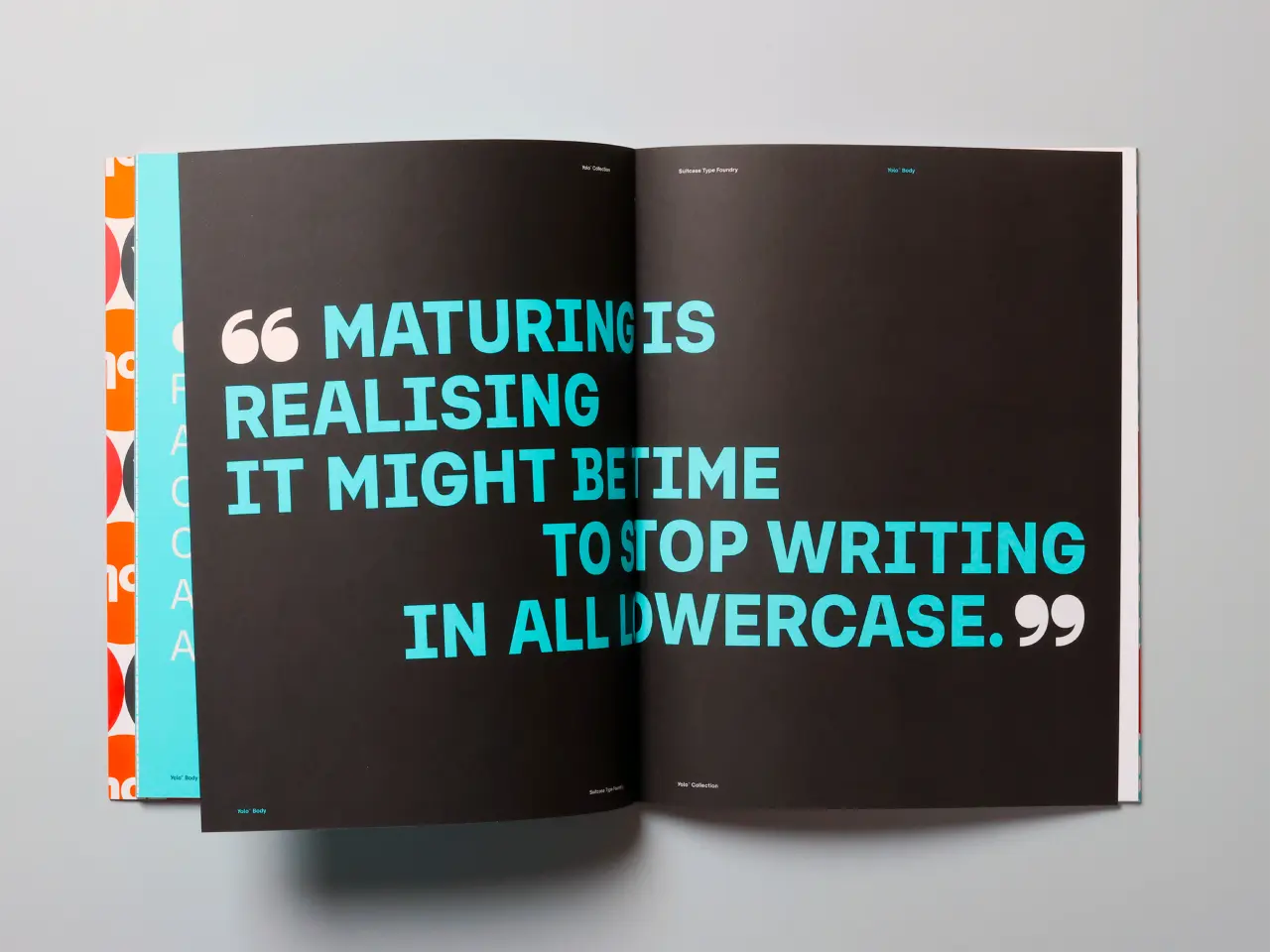
Yolo by Suitcase Type Foundry
1. Lingo by Softdrive
Mark Julien Hahn, founder and type designer at Softdrive Foundry, has just released Lingo – a transitional serif in 12 styles. That includes six weights plus true italics, built as a workhorse for long-form body copy. Our kind of territory.
It's inspired by 18th-century typefaces from the likes of William Caslon, John Baskerville and Louis Simonneau's Romain du Roi. It takes all their old-world charm, low stroke contrast and letterpress warmth as the foundation for this contemporary text face. But there's a twist. On closer inspection, you'll notice little drops on the 'g', 'f' and 'a' that give this serif personality and drama. Alternates are available when pure legibility is the priority.
It includes a full set of international glyphs through ten stylistic sets that swap classic letterforms for phonetic ones, built for expressive display type and logo work. The full family is now available, with a full trial version if you want to experiment first.
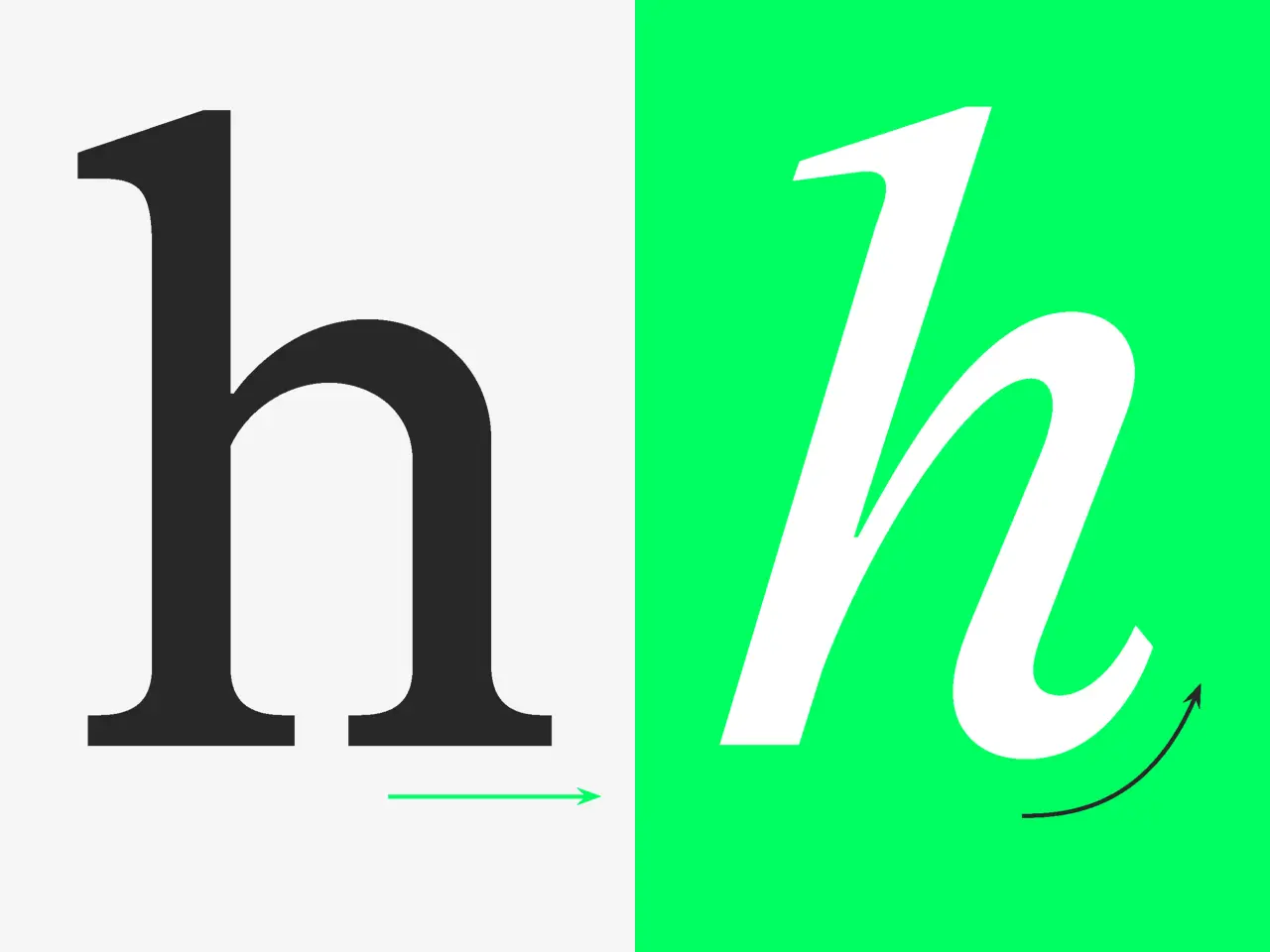
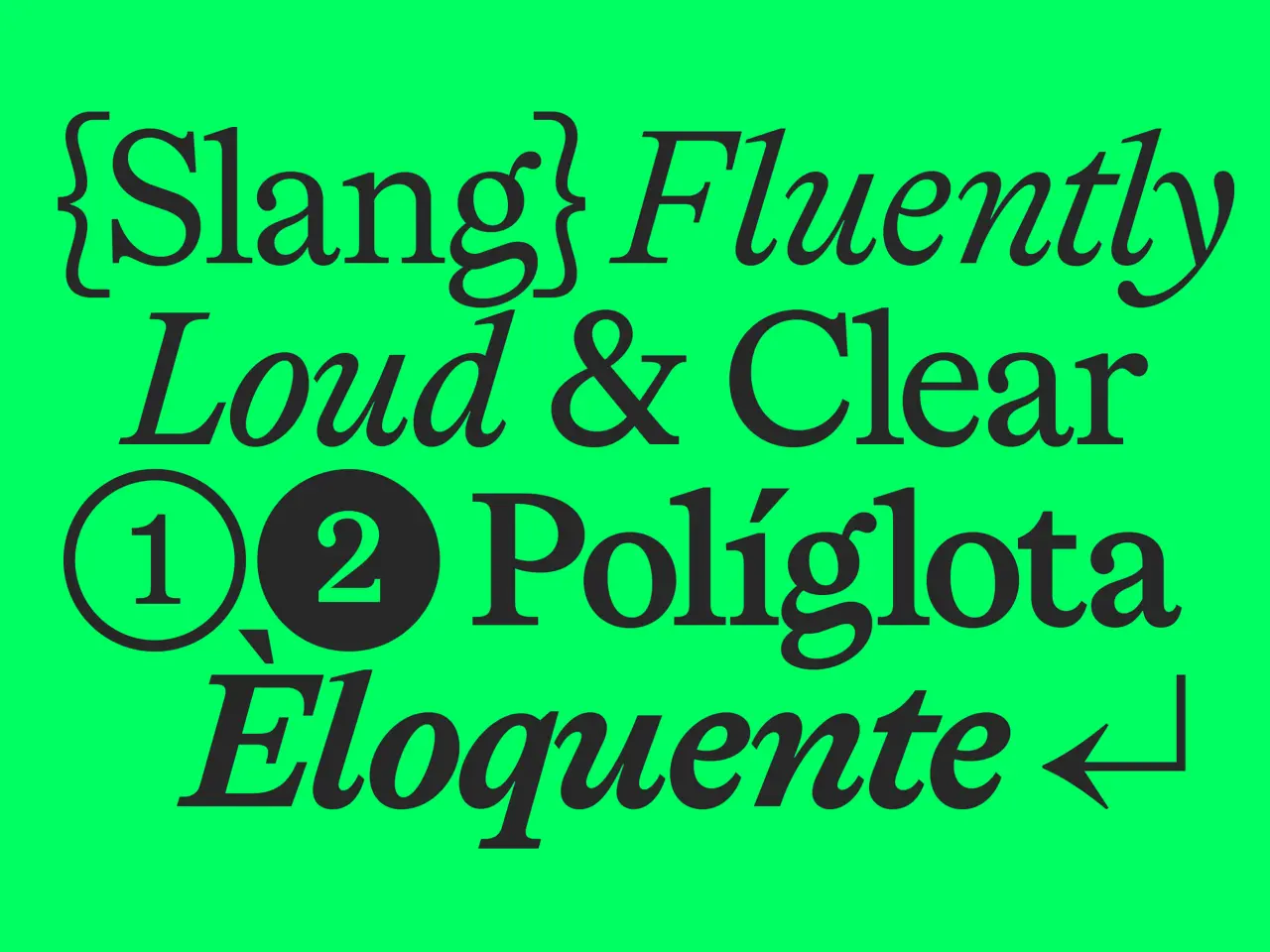
2. Sektor by Chill Type
One of the best things about running this regular series is discovering new foundries. And Chill Type is one of them. Its founder, Vedad Siljak, reached out this month to tell us about its latest release: Sektor.
It's a monumental slab serif with tight counters and even tighter spacing. Gorgeous. It mixes hard cuts with squarish curves, with technical precision and smooth stability I know you'll appreciate. The large slab keeps it grounded, while the thin punctuation adds nice contrast to the heavier letterforms. Naturally, it's a great shout for huge headlines and bold statements.
The type nerds among you will be delighted to hear of its inspiration: the logotype of an East German watercolour manufacturer. A typeface with a backstory. Perfect.
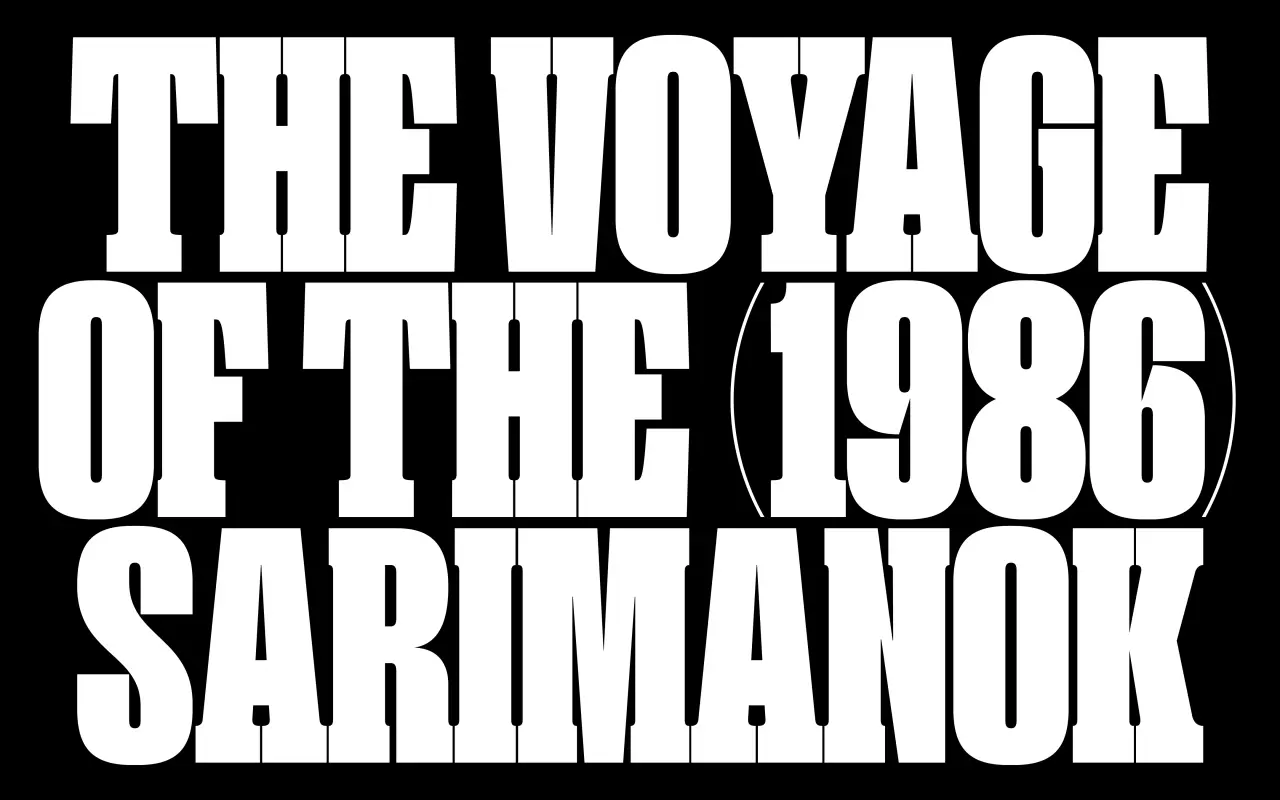
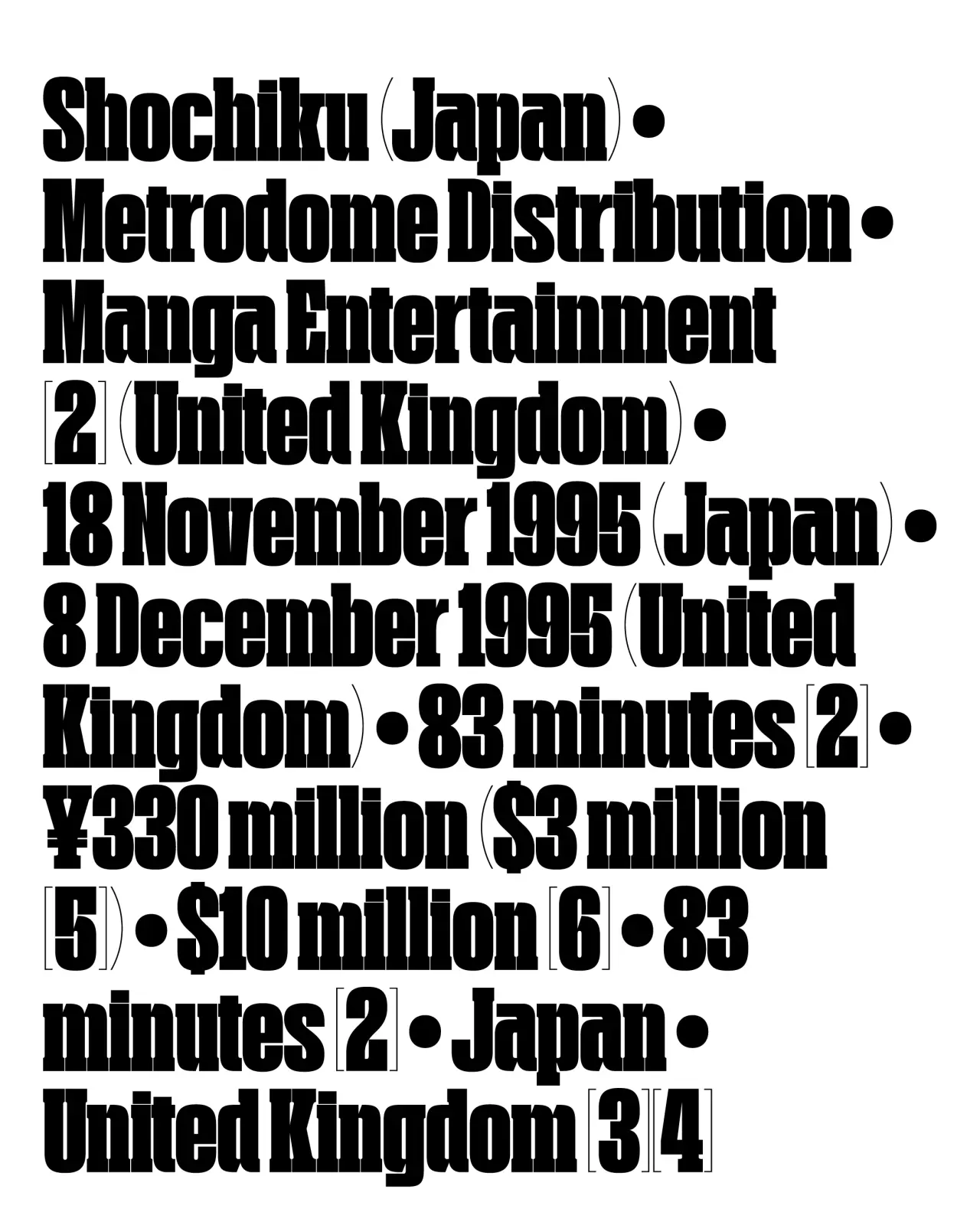
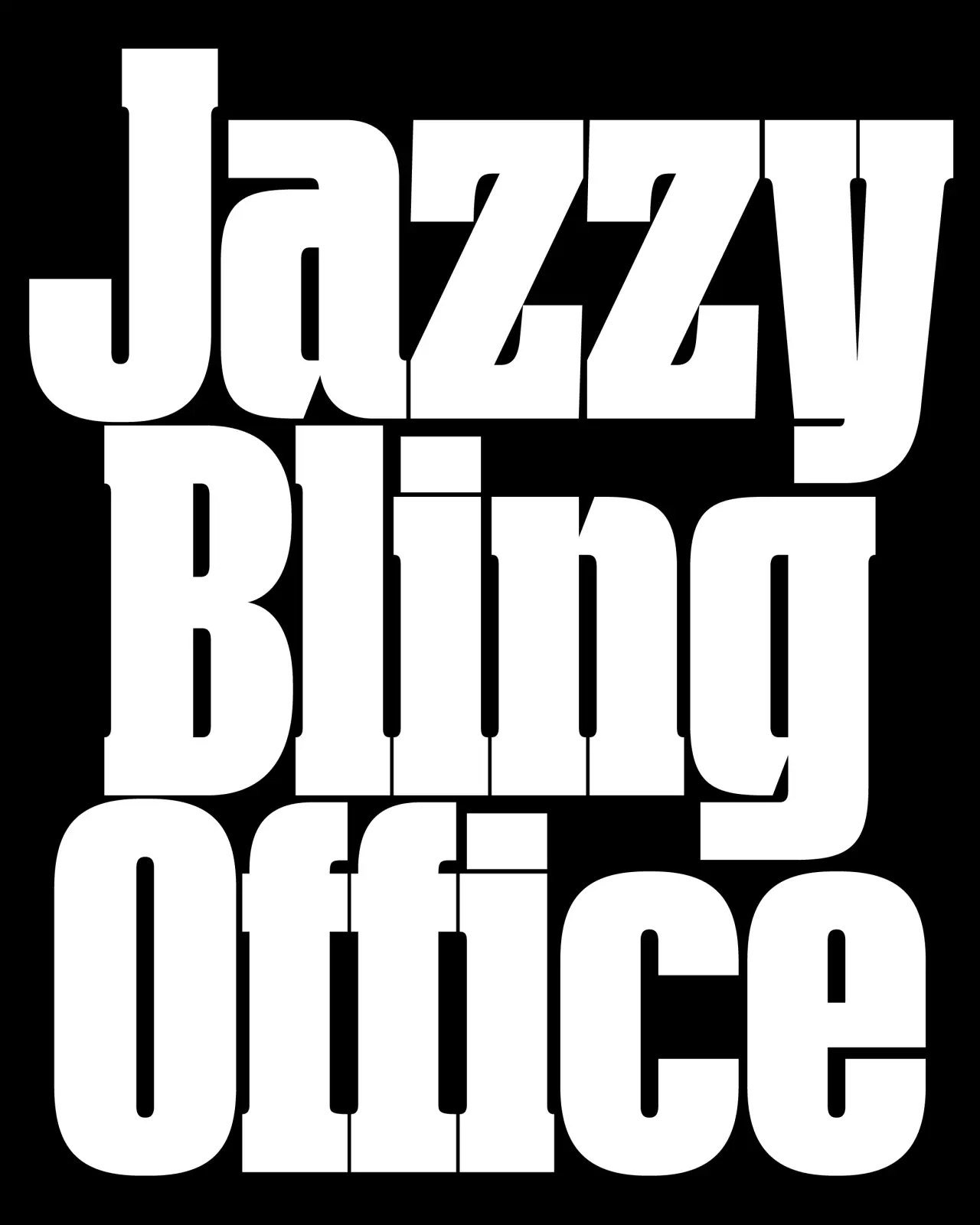
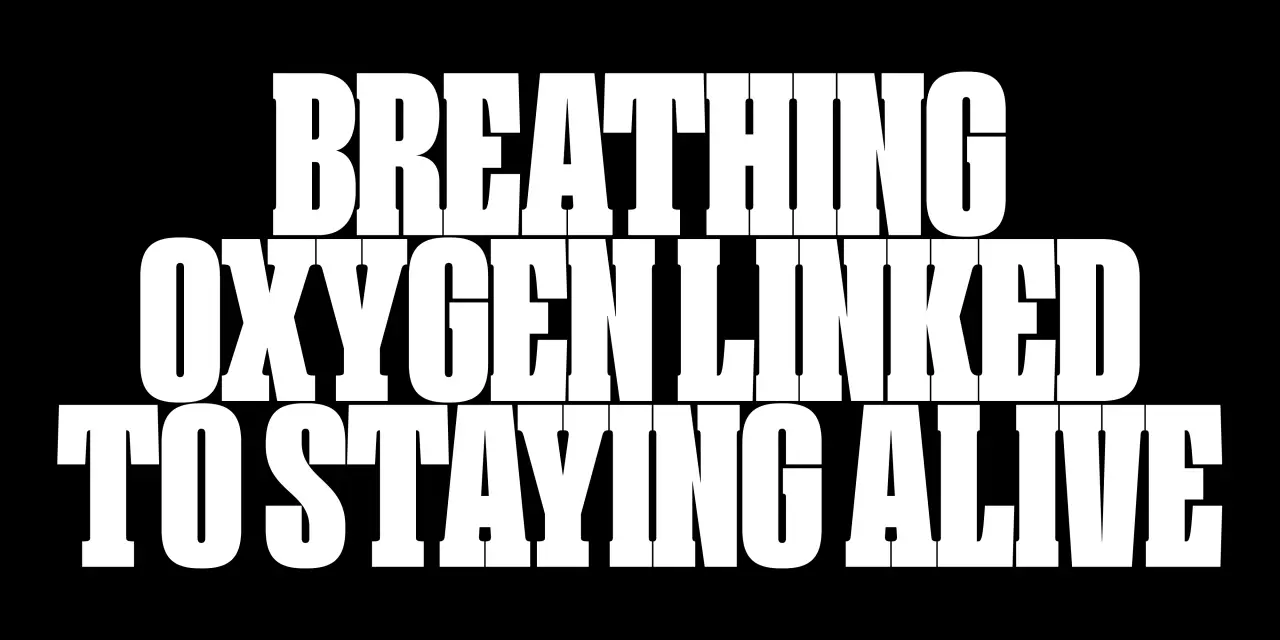
3. F37 Slabhead by F37
Now I'm curious. Who is 'Chad' based on? Is it Rick Banks? The friendly face behind F37, dare I ask? These things always come about from office banter, I suspect. We'd love to know if we're right. NOT that Rick has a slabhead. It was just the description: "a square head with a soft side". Which, when I think about it, Rick does kind of have a square jaw.
Whatever it was inspired by, F37 Slabhead is a geometric slab serif with a sturdy frame (more clues) and a "surprisingly approachable personality". It has broad proportions (proper Northern) and solid weights for impact, while teardrop terminals keep it from getting too serious.
Styles range from Regular to Black, with matching italics, too. As F37 puts it, "Slabhead can go from quietly dependable to completely thick-headed", making it ideal for headlines, identities and "anything that needs to make a strong impression without looking like it's trying too hard".
Big head. Soft edges. Lovely personality. Just like Rick... I mean, Chad. Available via the foundry now.
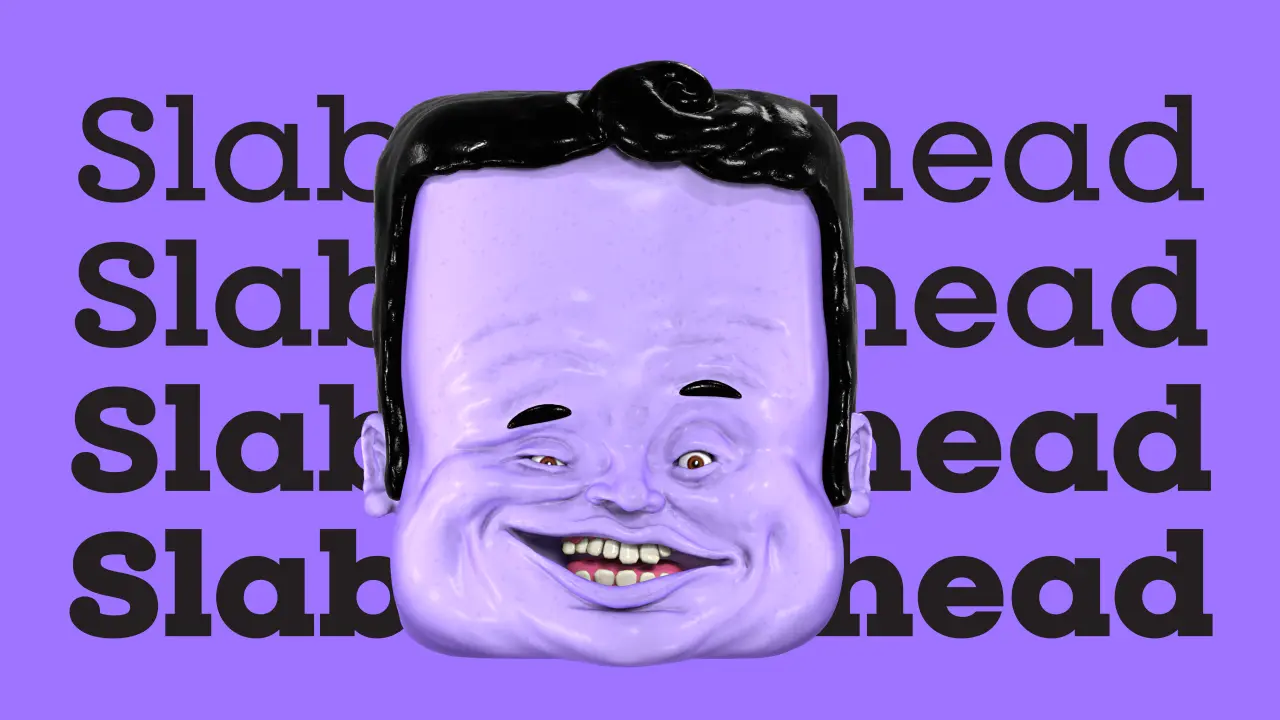
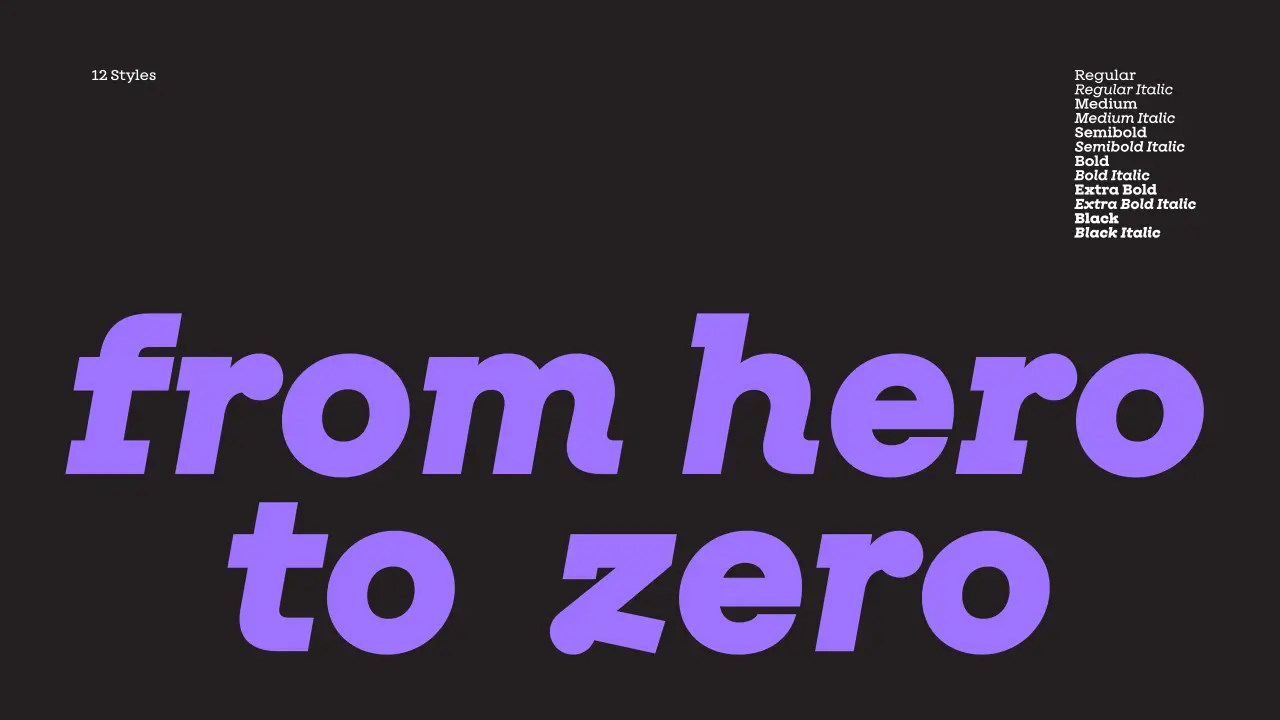
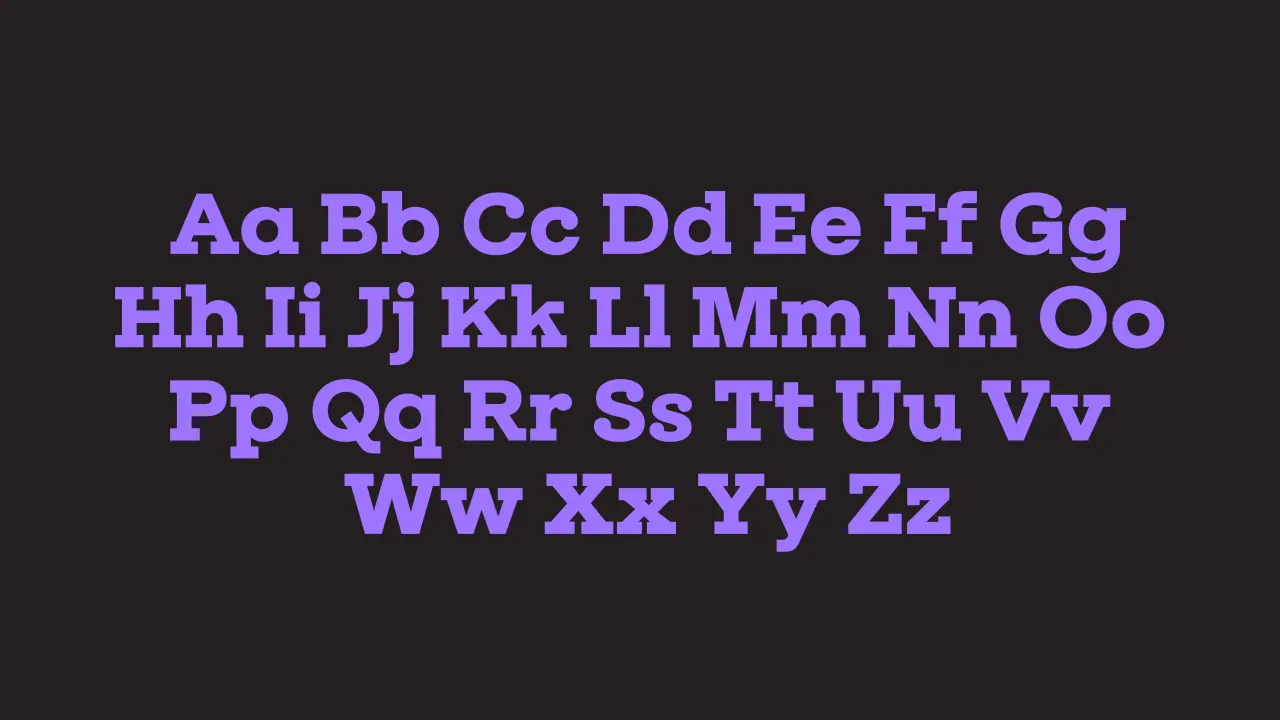
So you see, Suspira takes its influence from those Victorian-era sans serifs, which were quirky and characterful until neutral modernism tamed them. This new family prioritises recognisability over uniformity. It's meant to stand out rather than be a quiet supporting act.
The practical stuff? Eight weights from ExtraLight to Black, 530 glyphs, and a nice set of arrows. This one's for headlines, logos and bold branding. Use it anywhere you want type to make a statement.